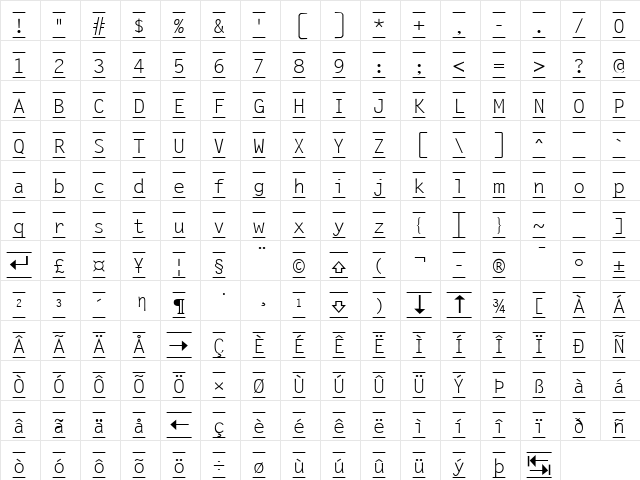
Keyboard Regular
Design Context for Keyboard Typeface
Keyboard takes a measured approach to typography — its balanced proportions and neutral character make it a reliable workhorse for both digital and print work.